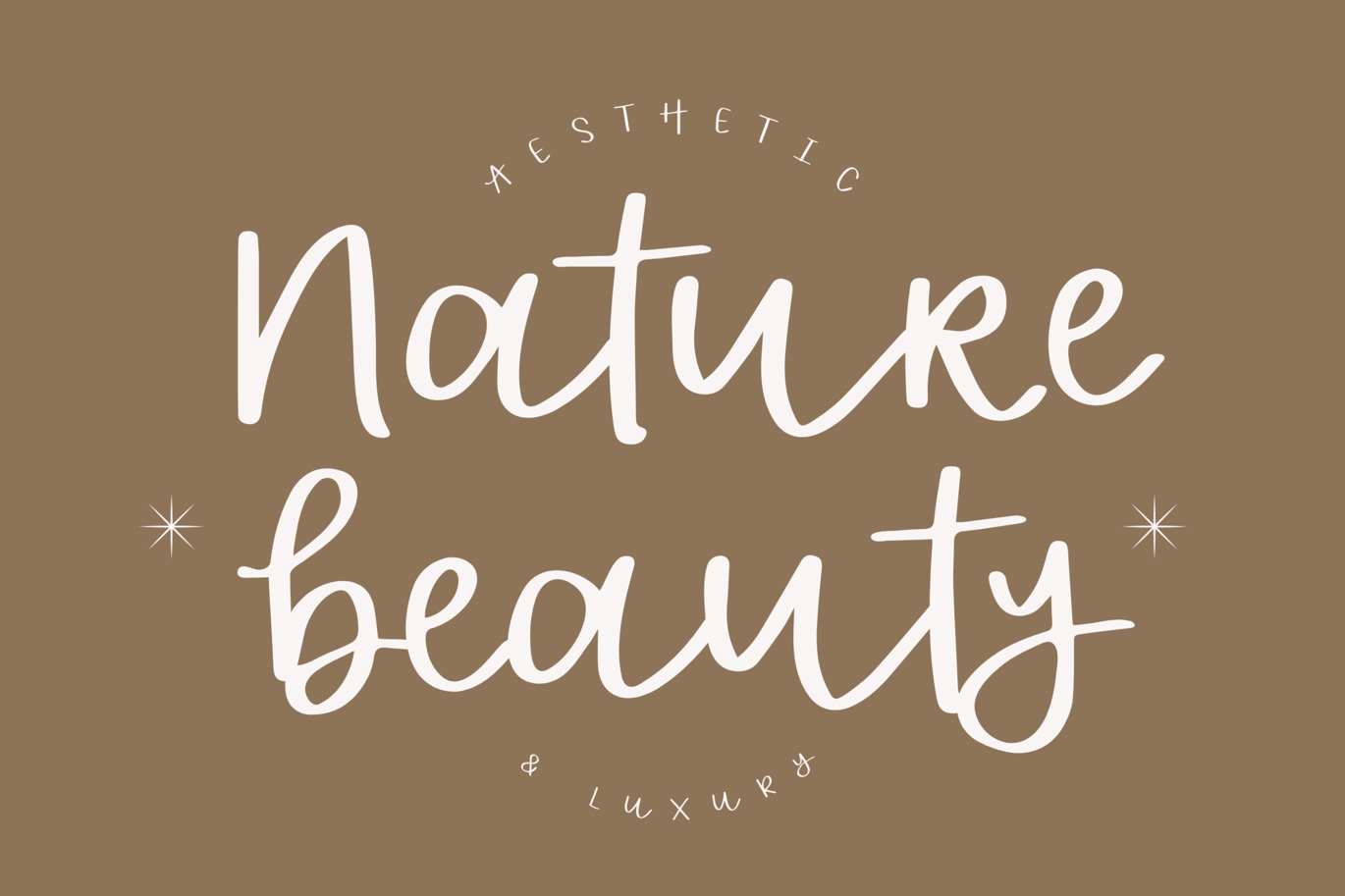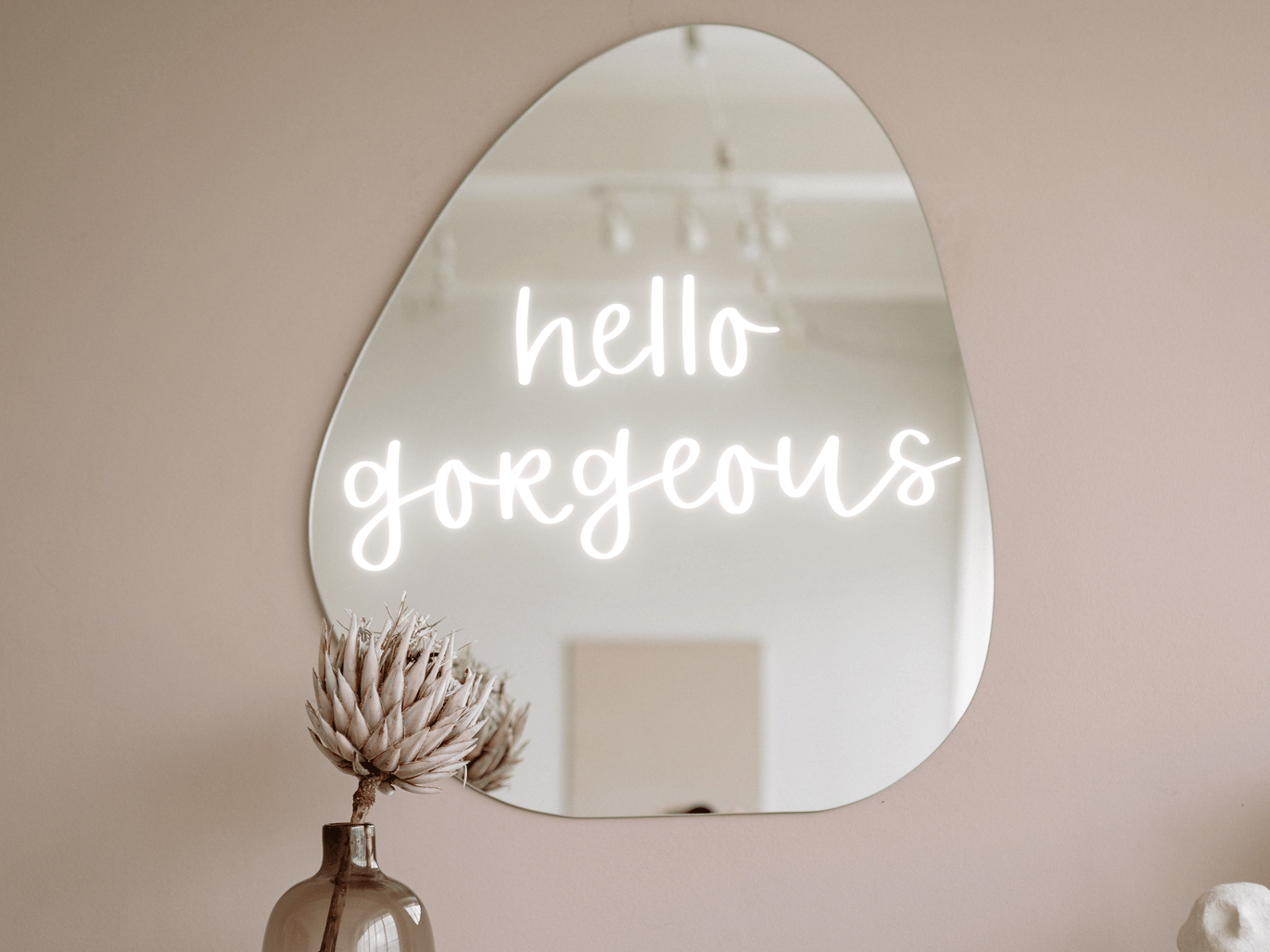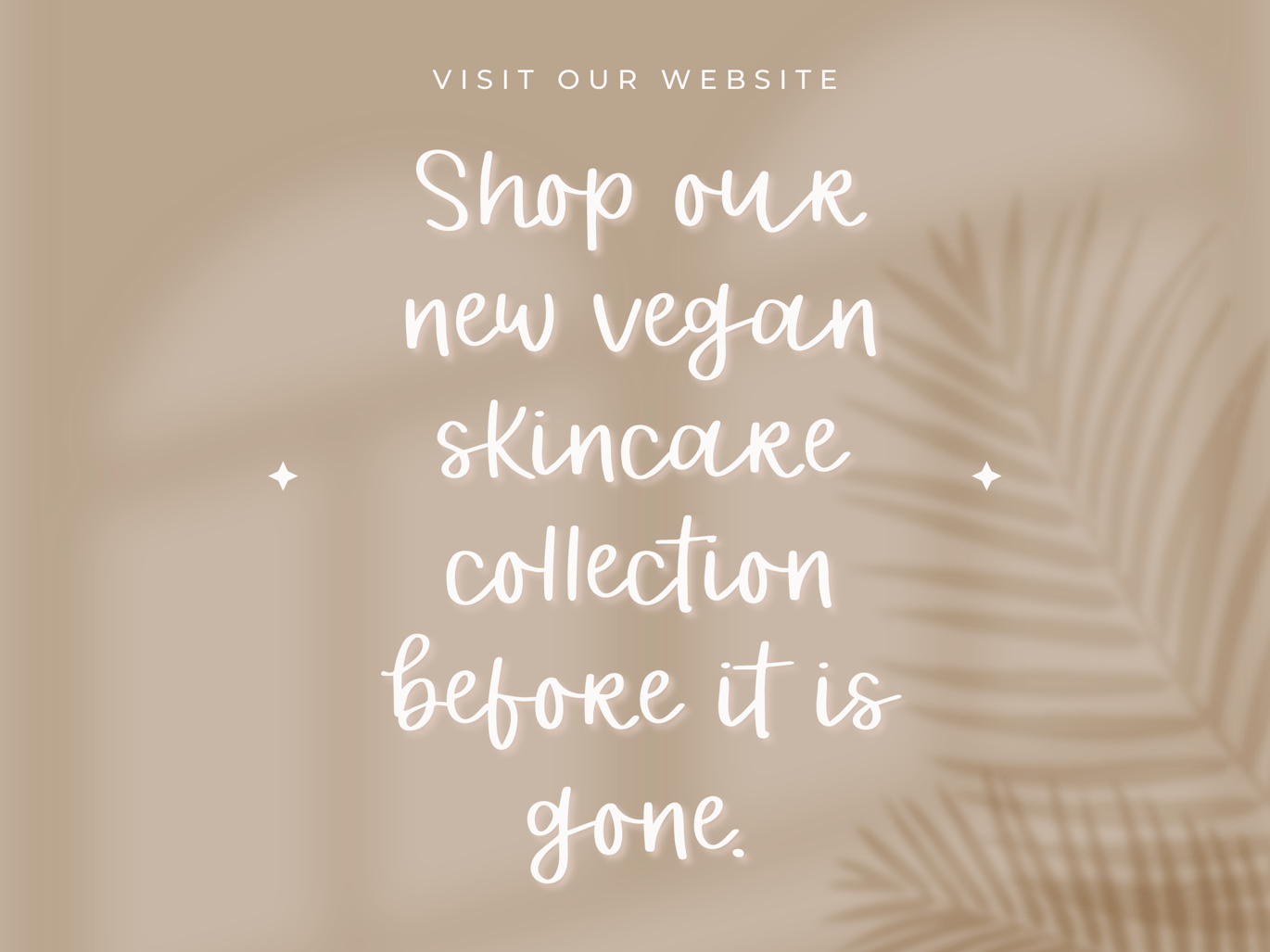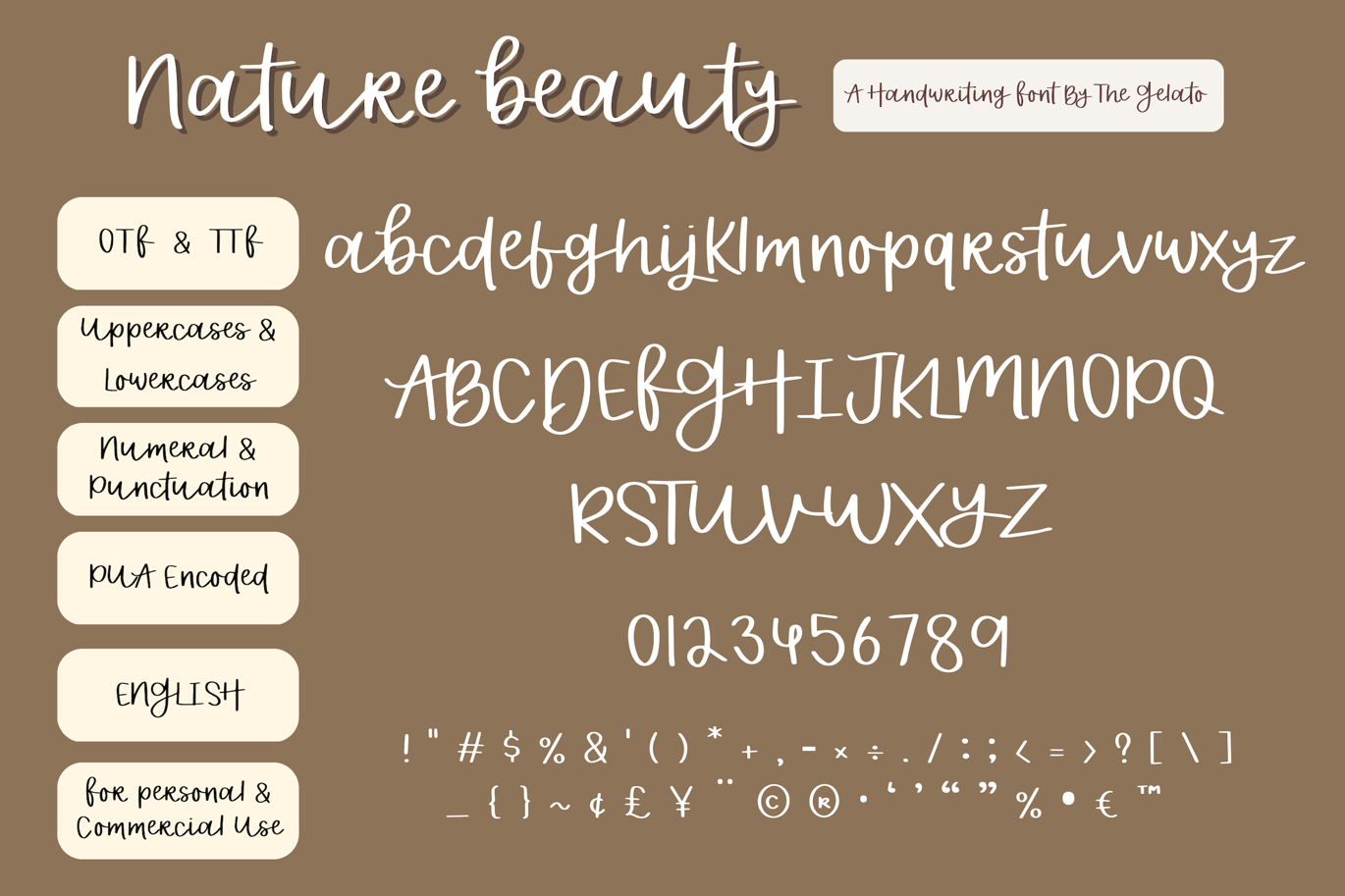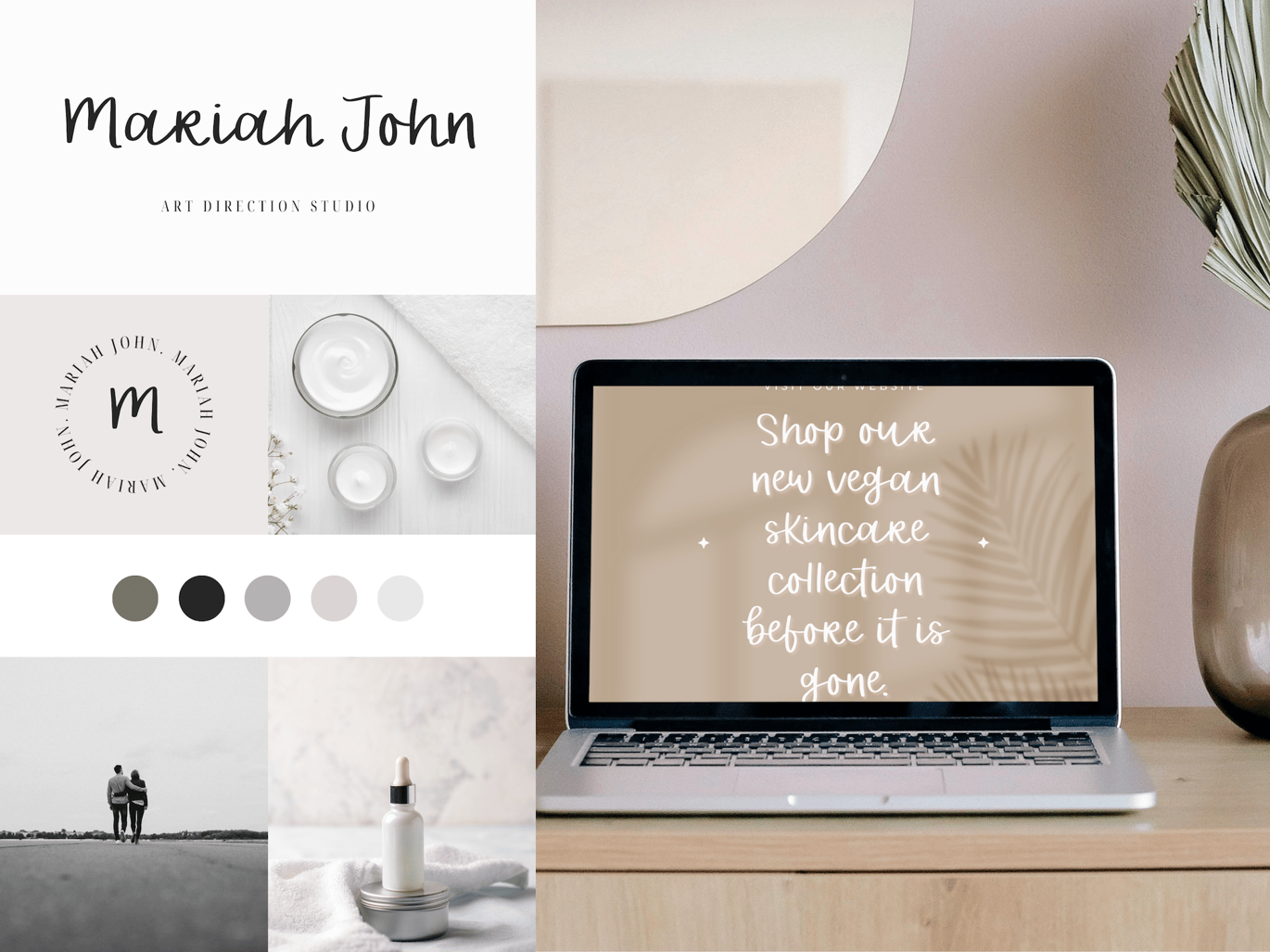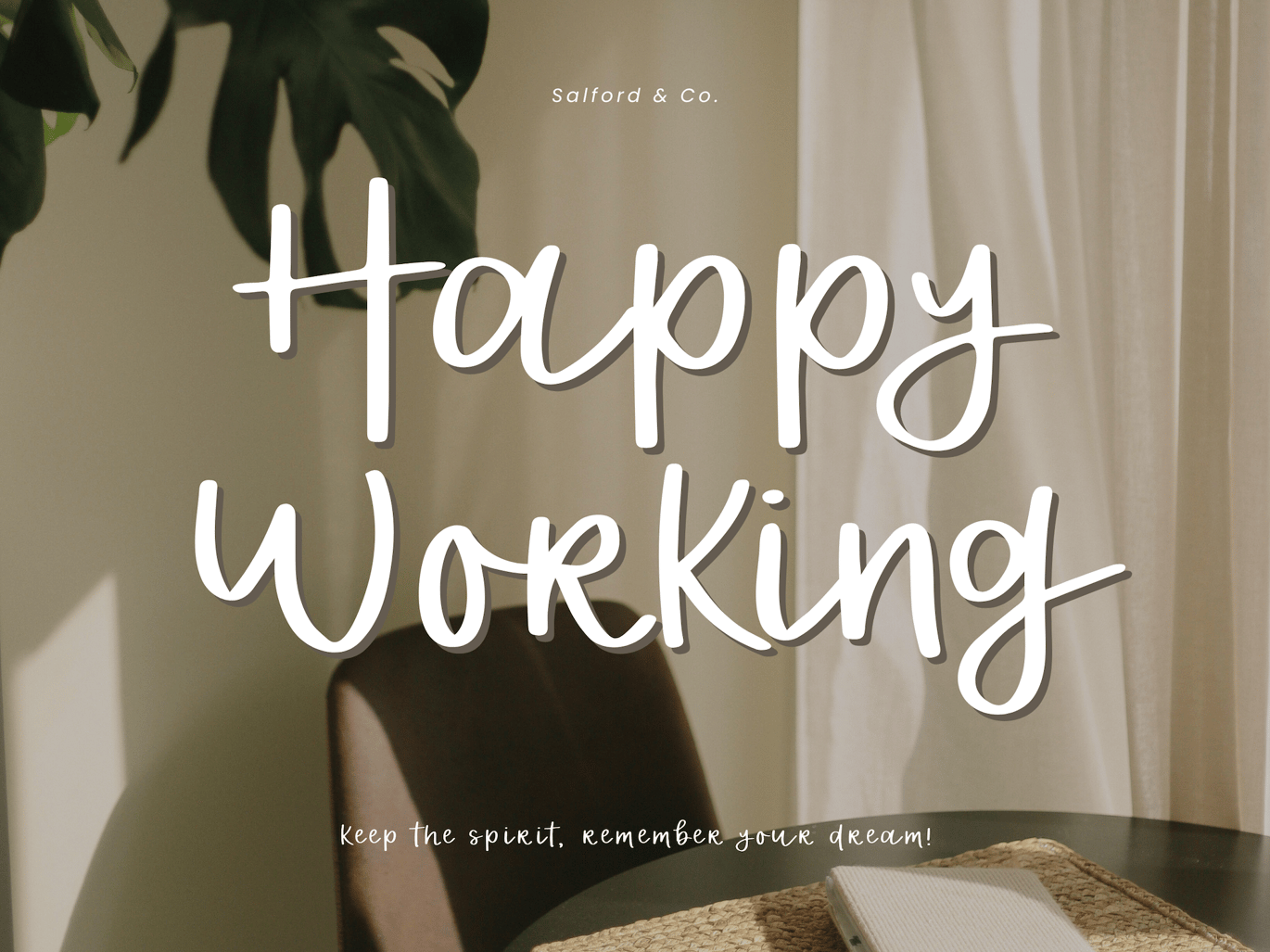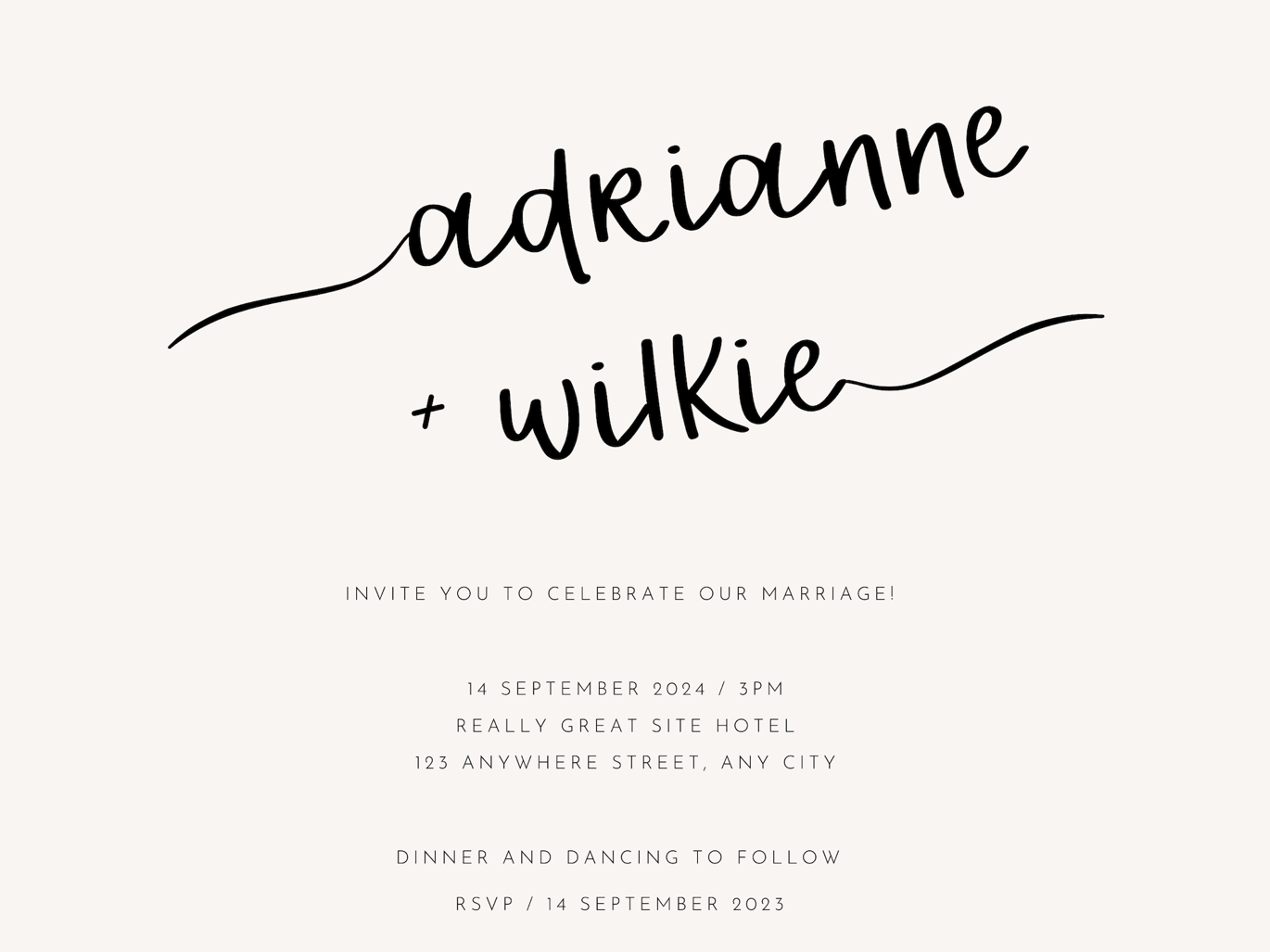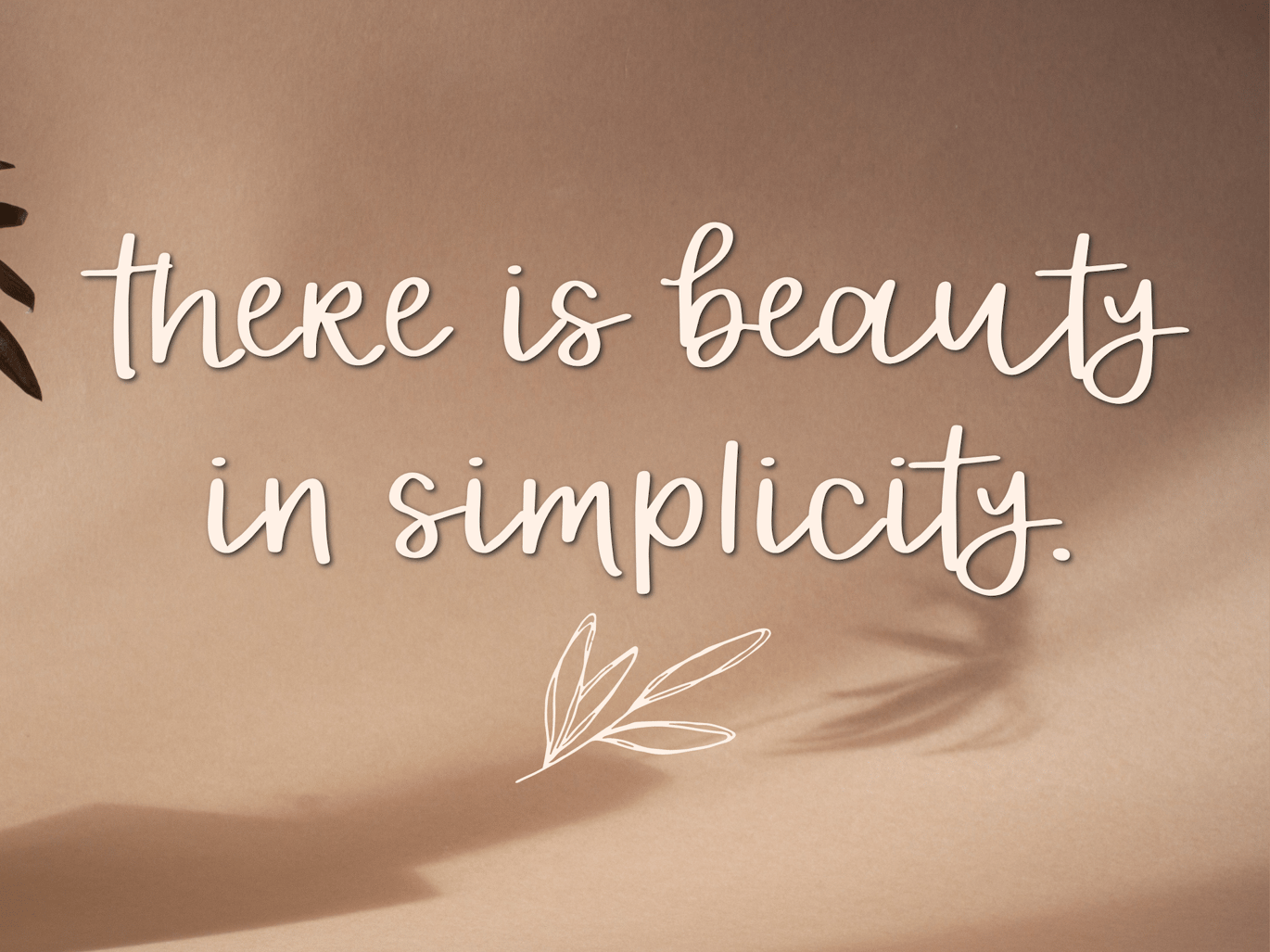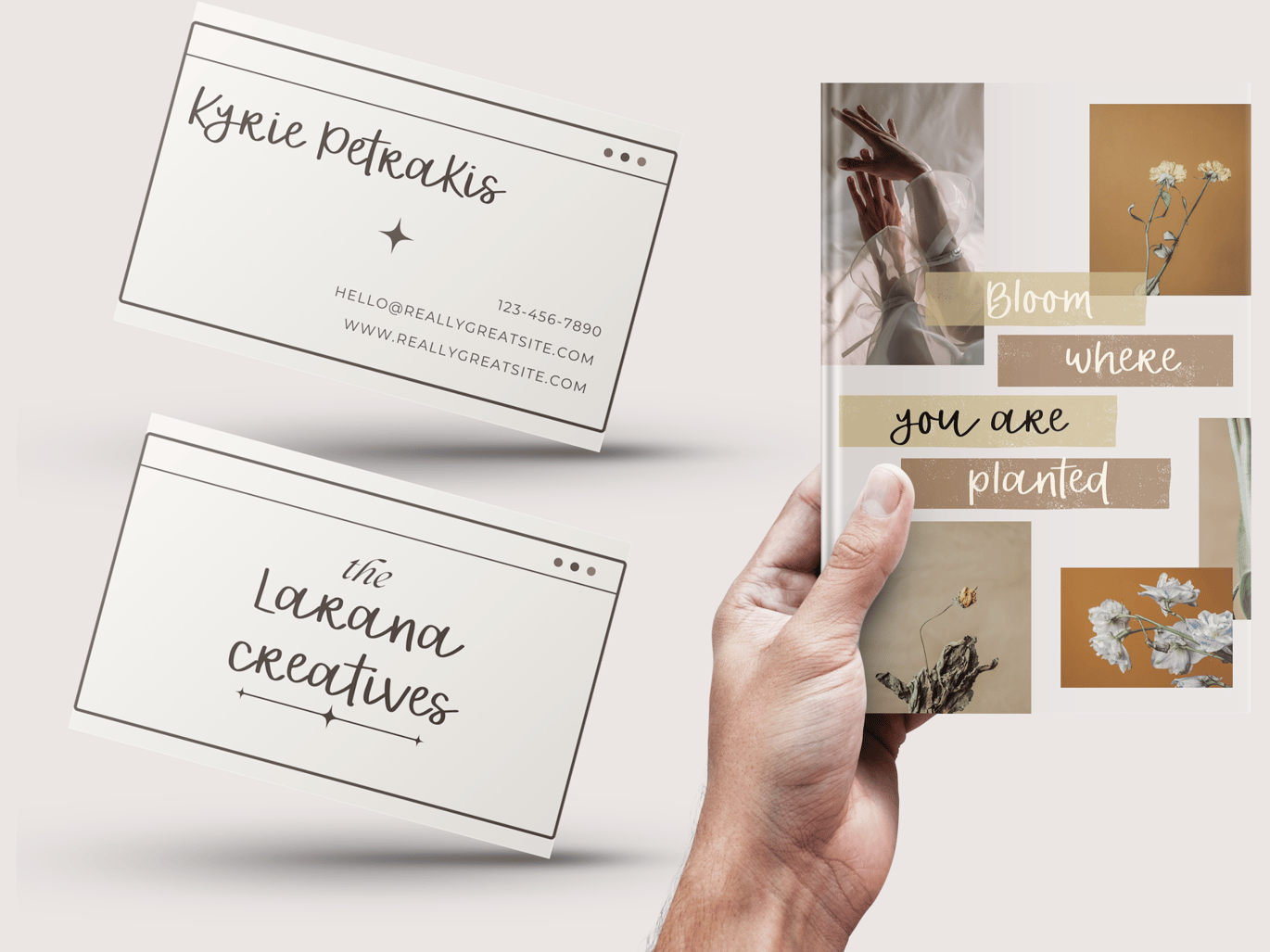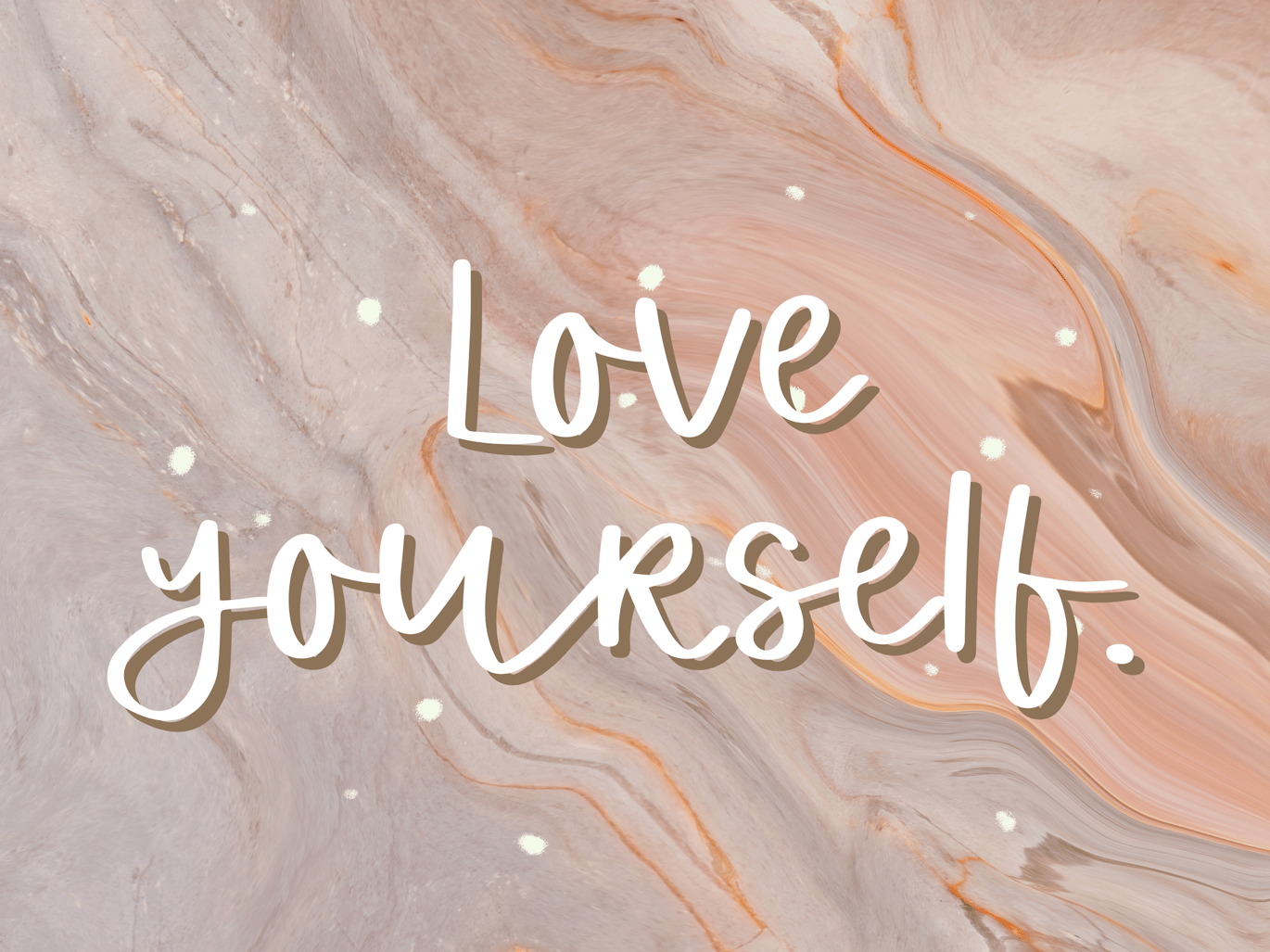
Nature Beauty Font
Nature Beauty font is an aesthetic handwritten script font that can be used as Modern Calligraphy Font, Boutique Sign Font, Casual Handwritten Script Font, Handwritten Branding Font, Boutique Font, Branding Font, Logo Font, or Handwriting cursive Font.
Perfectly suitable for numerous use such as branding, quotations, banners, logos, product packaging, titles, headers, menu lists, and invitation cards! Also, can work well on many occasions, such as boutique Signs, weddings, birthdays, thanksgiving, Christmas, Valentine’s, etc.